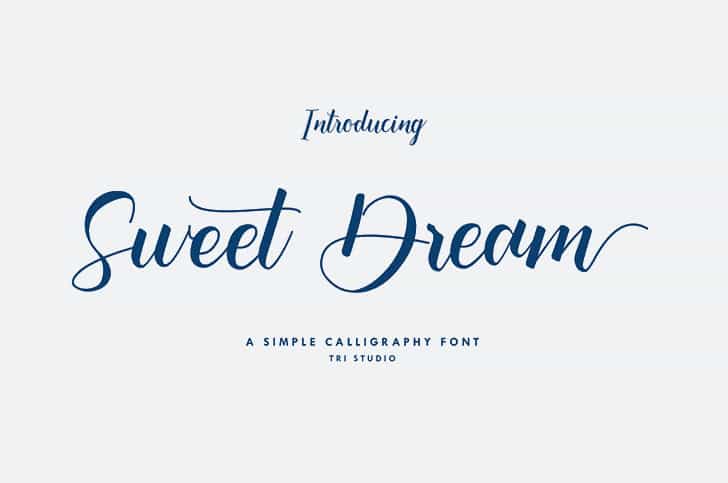
Discover Sweet Dream Calligraphy Font, part of the Calligraphy collection—a versatile and unique font perfect for adding a personal touch to your projects. Download it for free and enjoy crafting designs with style, from invitations to social media posts. This font is available exclusively for personal use, giving you the freedom to create without limits. Unlock your creativity with Sweet Dream Calligraphy Font today!
Sweet Dream offers a script, on calligraphy, making it suitable for all sorts of creative projects with its unique charm.